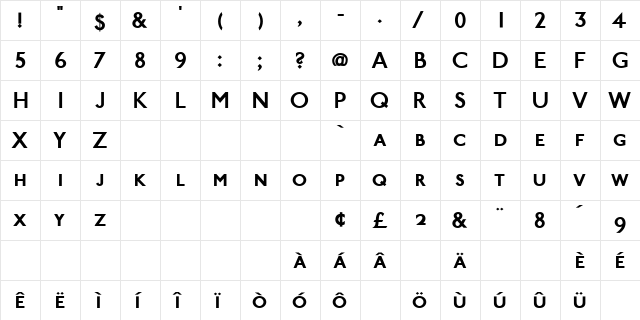
PaddingtonSC Bold Small Caps Demi
Design Context for PaddingtonSC Bold Small Caps Typeface
PaddingtonSC Bold Small Caps is a composed and adaptable typeface that performs quietly and consistently across a wide range of design contexts. The heavy weight commands attention and anchors typographic hierarchies.
Pro Tip: Use PaddingtonSC Bold Small Caps in both headline and body roles to test its range before committing to a single application.